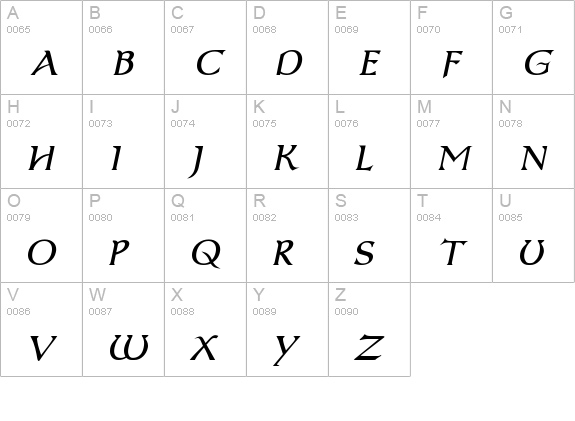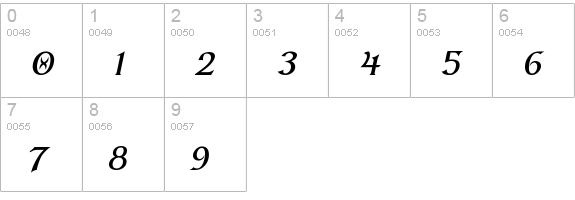
Dumbledor 1 Italic Font Details
Dumbledor 1 Italic is a distinctive, italic variant in the Dumbledor typeface family \xE2\x80\x94 well suited to design and typography projects.
*Dumbledor 1* is a whimsical and elegant font that exudes charm and sophistication. With its delicate curves and stylish flourishes, this typeface effortlessly captures a sense of magic and wonder. Perfect for adding a touch of enchantment to any project, whether it's a wedding invitation, logo design, or branding materials. The best part? *Dumbledor 1* is freely available to download at FontsMarket.com, making it accessible for all your creative endeavors. Embrace the beauty and grace of this stunning font and let your imagination run wild with endless design possibilities.